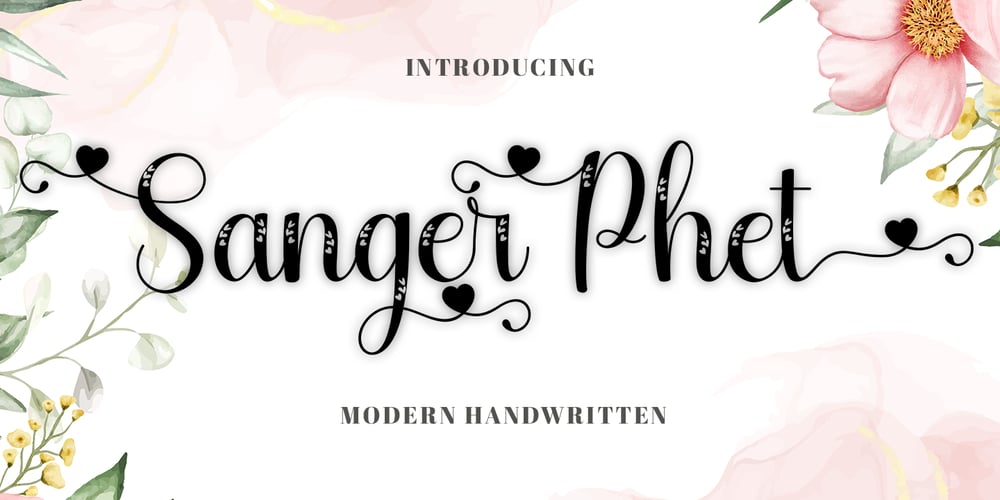
Sanger phet Font Family was designed by Teuku Muhammad Zaki and published by Zaki Creative. Sanger phet contains 1 styles and family package options. Sanger Phet is a soft and sweet calligraphic typeface, with characters dancing along the baseline. It has a casual and elegant touch. Can be used for various purposes such as logos, wedding invitations, headings, t-shirts, letterheads, signage, labels, news, posters, badges etc.